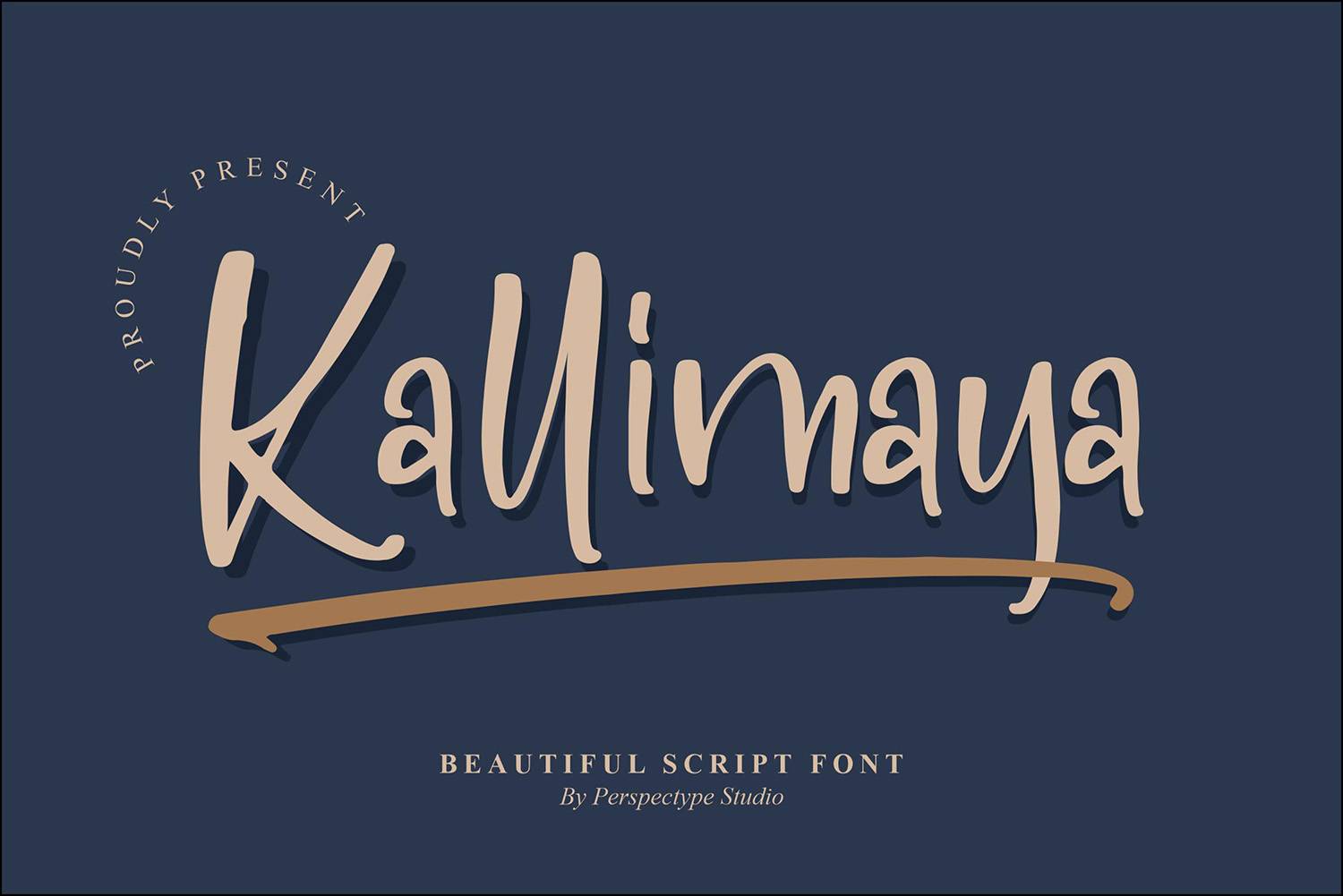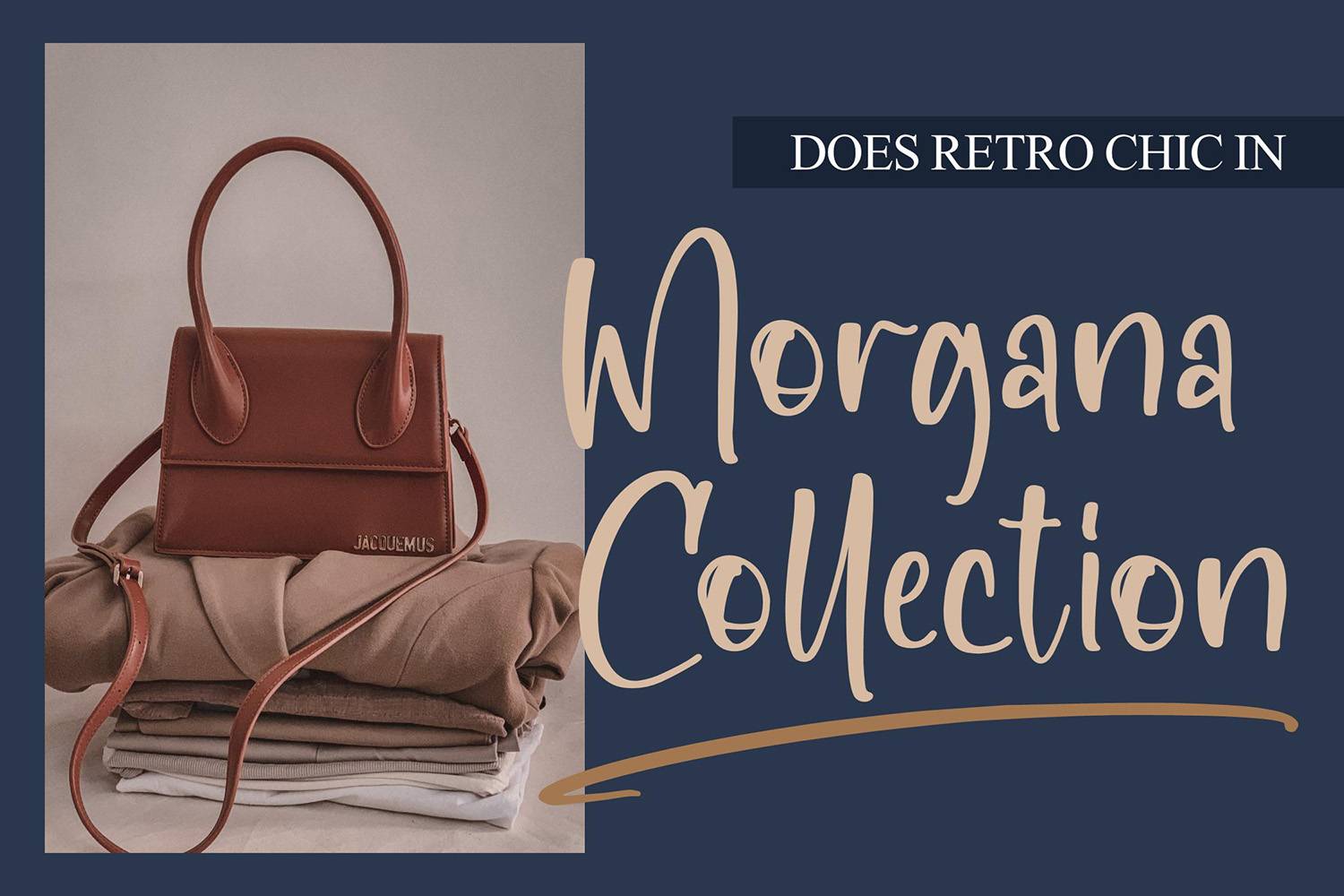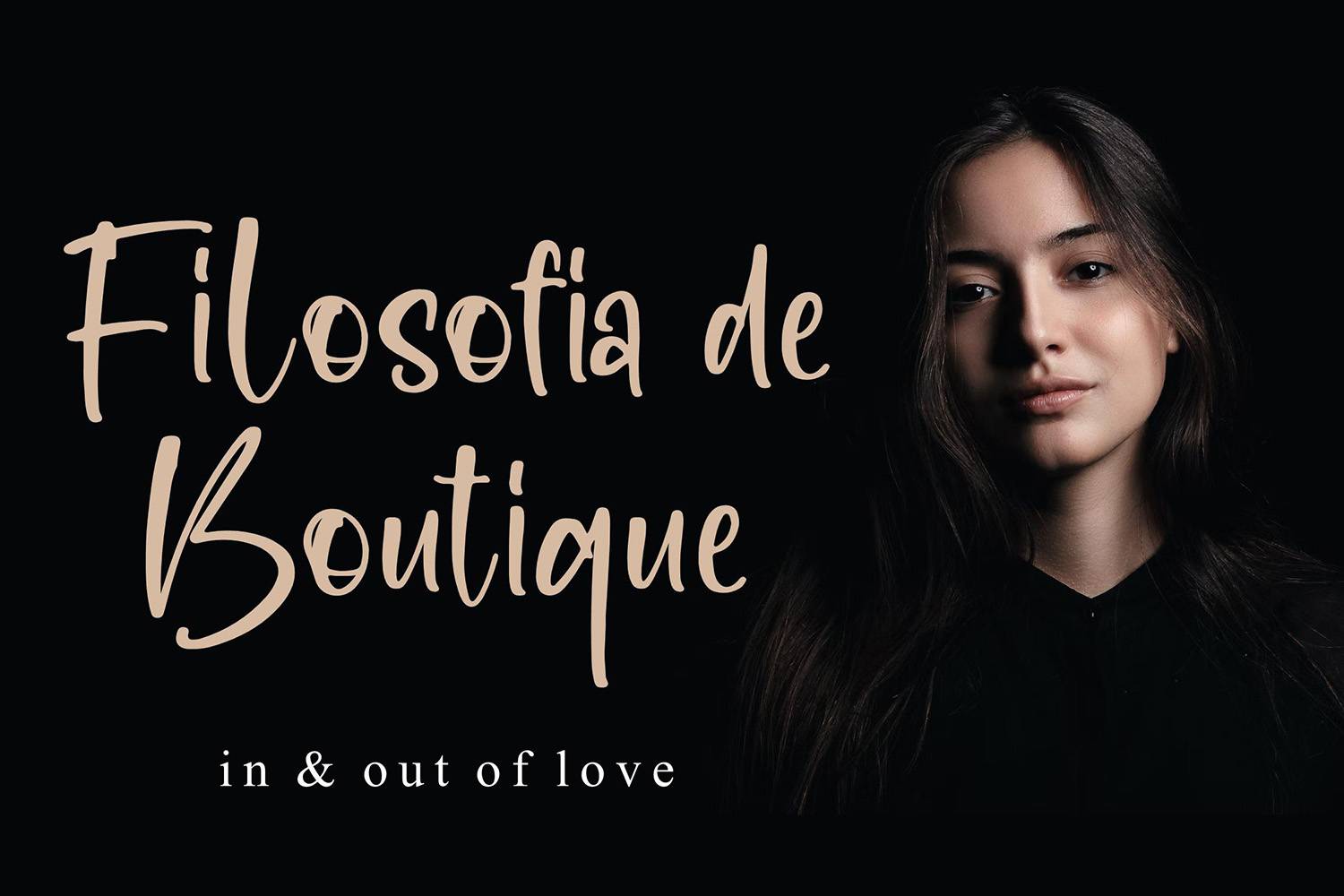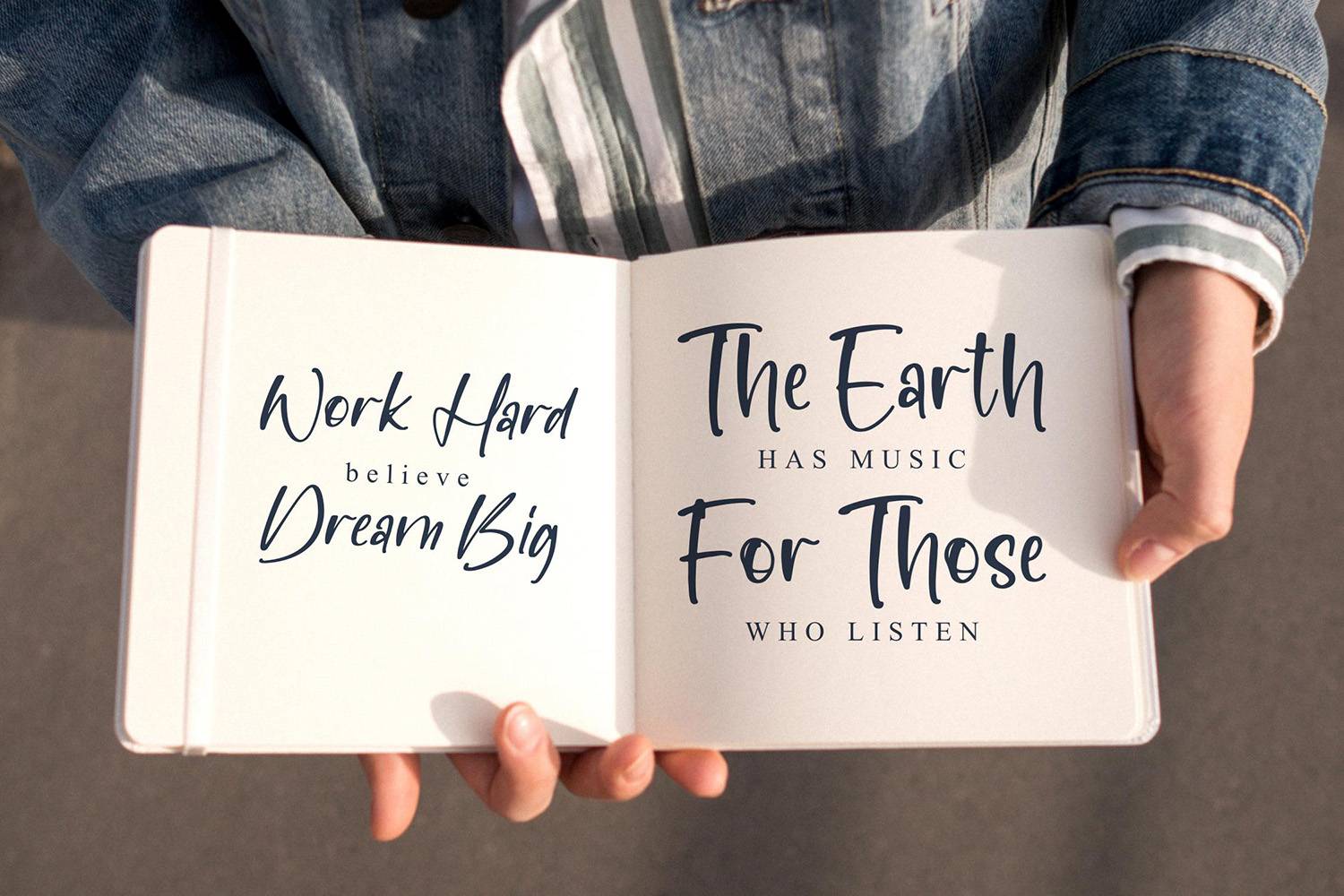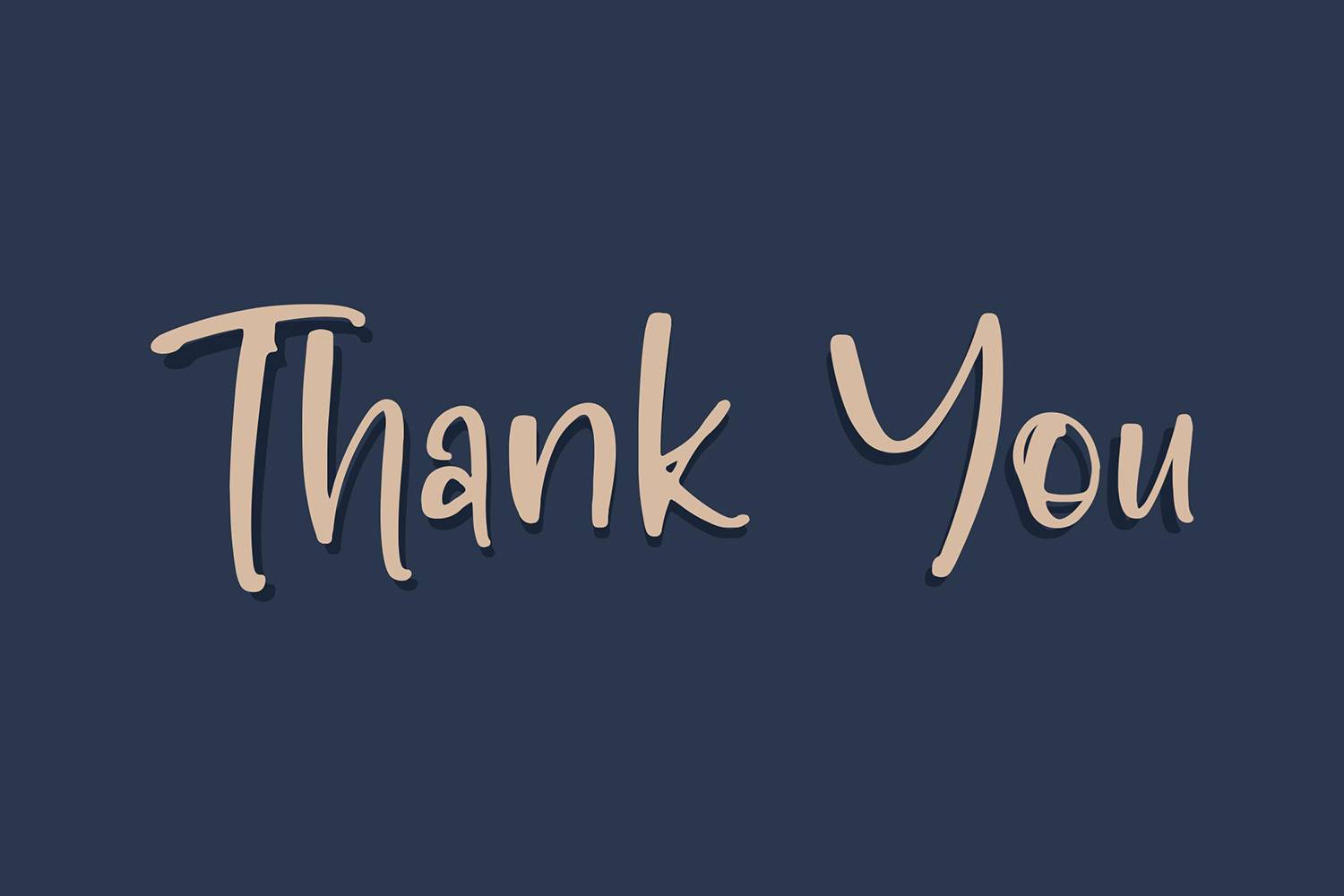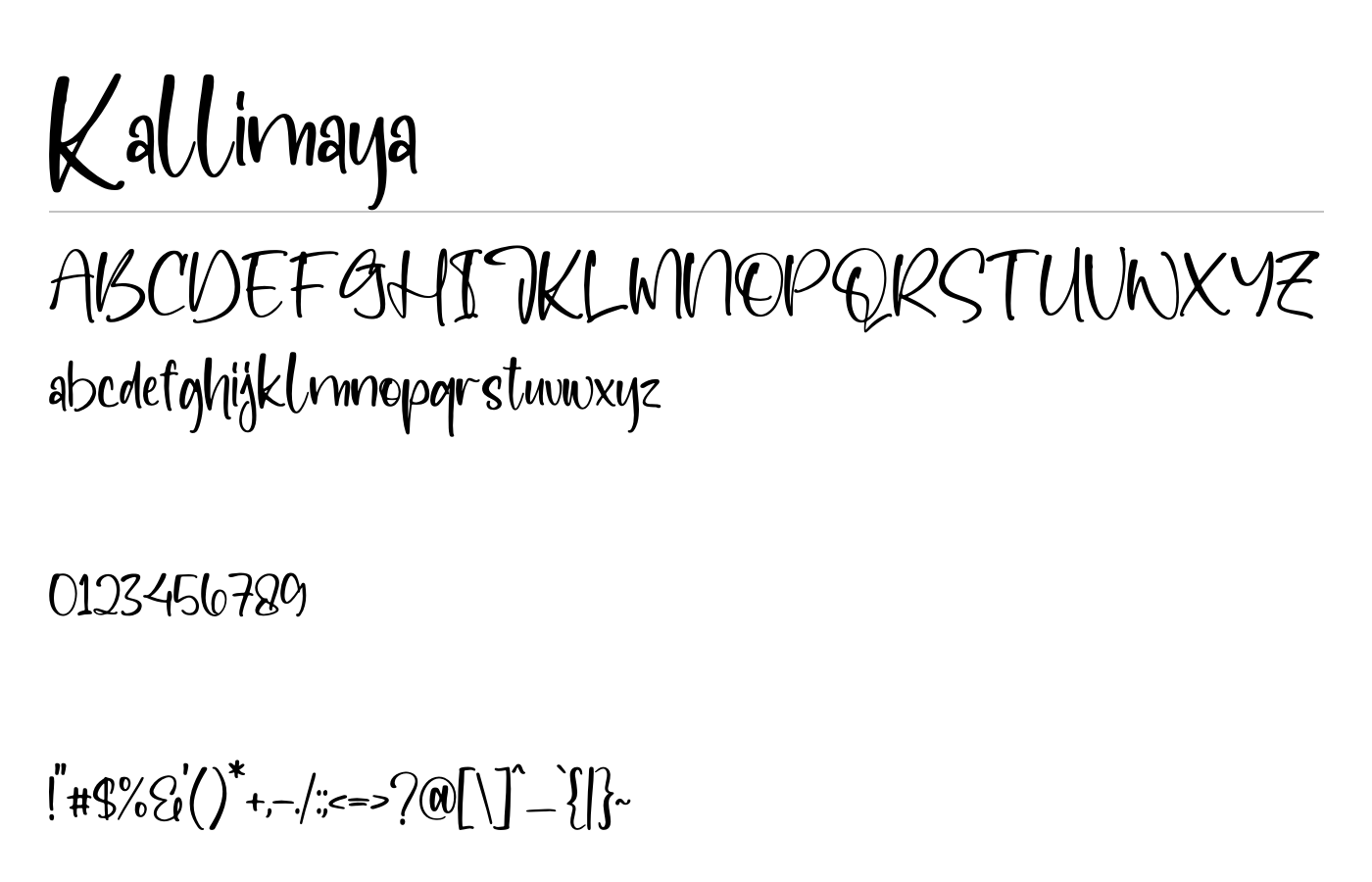
Kallimaya is a playful, handwritten script font with a casual and lively feel. Its irregular strokes, varied letter heights, and organic flow give it a personal and informal touch, making it perfect for creative projects, invitations, or brands that want to convey warmth and approachability. This font works best in headlines, logos, and packaging where a friendly and unique personality is desired.
Kallimaya Font
About Kallimaya Font